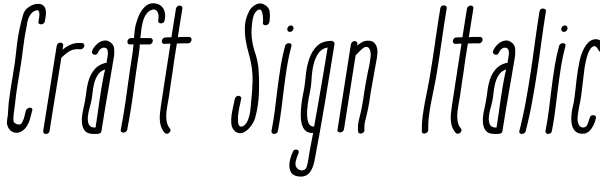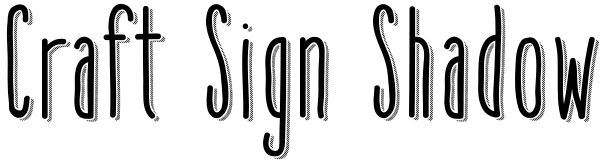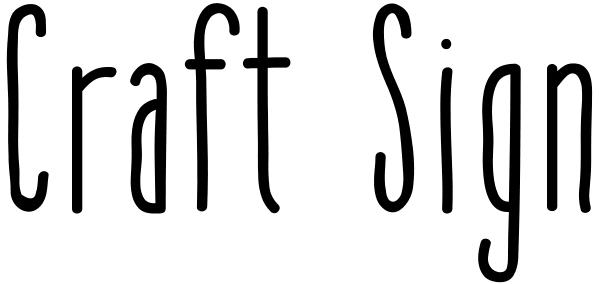
Craft Sign
Craft Sign font family has been created to give a crafty, hand drawn look to your project. This font features a free shadow only style which can be overlaid onto the regular Craft Sign to create colour combinations.